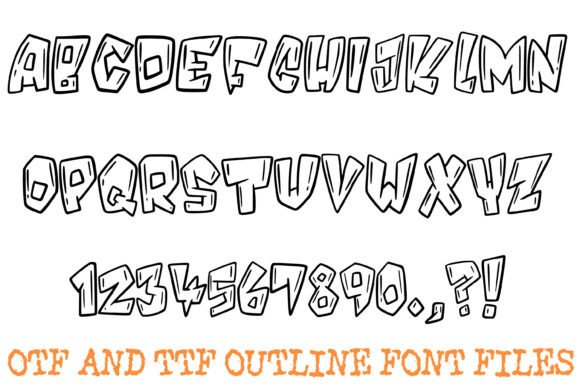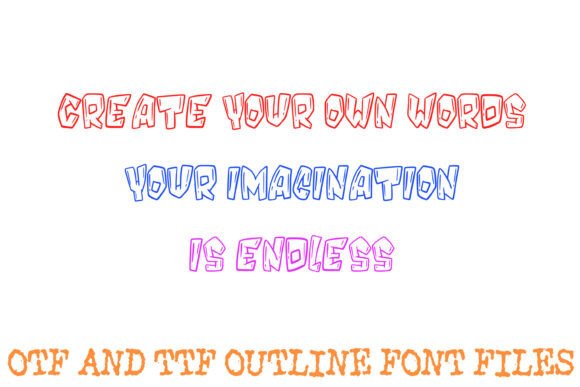
Unleash Your Creativity with the Geometric Graffiti Font
Are you a designer or crafter looking for a bold and eye-catching font to elevate your projects? Look no further than the Geometric Graffiti Font. This striking display typeface combines the edgy, urban feel of street art with the precision of rigid, blocky geometry, making it perfect for creating high-impact designs that demand attention.
The Design
The Geometric Graffiti Font boasts thick, hand-drawn outlines and sharp, chiseled angles that give it a rugged, architectural energy. Each character is carefully crafted with straight edges and “rock-cut” terminals, providing a sense of solidity and structure. The font’s bold, geometric aesthetic makes it an ideal choice for designers seeking to create striking posters, gaming graphics, skate-brand identity, and comic book headings.
- Bold and Structured: The Geometric Graffiti Font features thick, hand-drawn outlines and sharp, chiseled angles, giving it a bold and structured appearance.
- Rugged and Architectural: The font’s design captures a rugged, architectural energy, with straight edges and “rock-cut” terminals defining each character.
- Tactile and 3D: Subtle interior detail lines provide a sense of depth and texture, giving the alphabet a tactile, three-dimensional feel.
- Versatile: The Geometric Graffiti Font is perfect for a wide range of design applications, from high-impact posters and gaming graphics to skate-brand identity and comic book headings.
Whether you’re building an identity for an esports team or designing vibrant streetwear apparel, the Geometric Graffiti Font delivers a gritty yet playful aesthetic that commands attention. Its unique blend of urban street art and rigid geometry makes it an excellent choice for designers and crafters seeking to add an edgy touch to their projects.
Applications
The Geometric Graffiti Font is versatile and can be used in a variety of design applications, including:
- Posters: Create eye-catching posters for concerts, events, or promotions with the Geometric Graffiti Font.
- Gaming Graphics: Add a bold and edgy touch to your gaming graphics, including logos, icons, and in-game text.
- Skate-Brand Identity: Create a striking brand identity for skate shops, skate parks, or skate-inspired clothing lines.
- Comic Book Headings: Use the Geometric Graffiti Font to create bold and attention-grabbing headings for comic books, graphic novels, or manga.
- Streetwear Apparel: Design vibrant and eye-catching streetwear apparel, including t-shirts, hoodies, or hats.
- Esports Team Identity: Build a strong and recognizable brand identity for esports teams with the Geometric Graffiti Font.
To get the most out of the Geometric Graffiti Font, here are some tips and tricks:
- Experiment with Colors: The Geometric Graffiti Font looks great in bold, bright colors. Experiment with different color schemes to find the perfect combination for your design.
- Play with Texture: Add texture to your design by layering the Geometric Graffiti Font over images or other design elements.
- Mix and Match: Combine the Geometric Graffiti Font with other fonts or design elements to create a unique and eye-catching design.
The Geometric Graffiti Font is a bold and structured display typeface that blends urban street art with rigid, blocky geometry. With its rugged, architectural energy and tactile, three-dimensional feel, this font is perfect for designers and crafters seeking to add an edgy touch to their projects. Whether you’re creating high-impact posters, gaming graphics, skate-brand identity, or comic book headings, the Geometric Graffiti Font delivers a gritty yet playful aesthetic that commands attention.